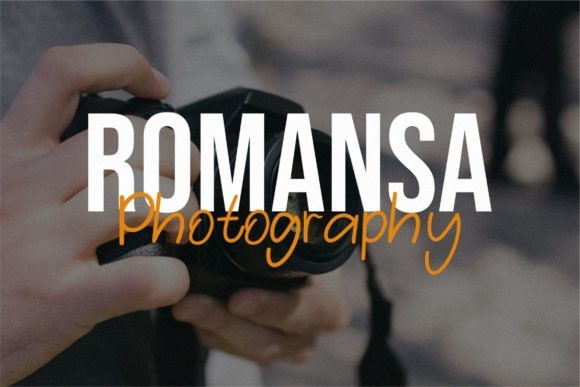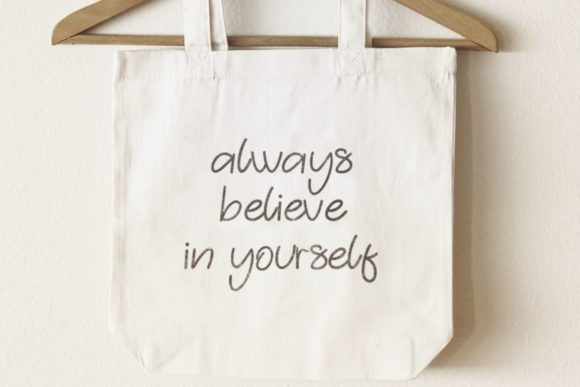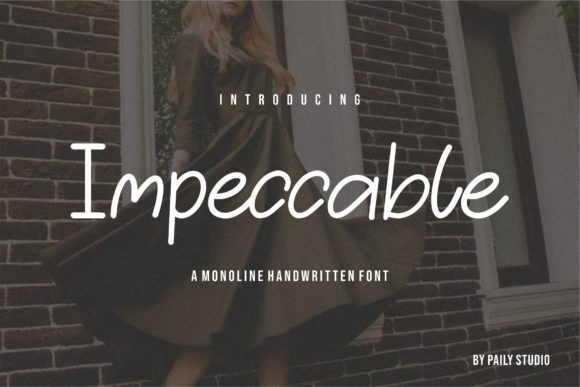
Impeccable Display Font
Impeccable is a delicate, elegant and flowing handwritten font. It has beautiful and well balanced characters and as a result, it matches a wide pool of designs. Add it confidently to your projects, and you will love the results.